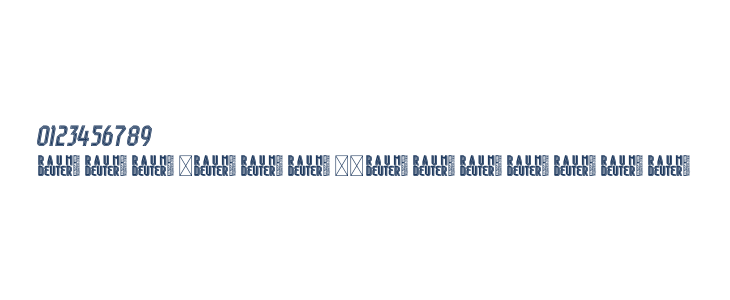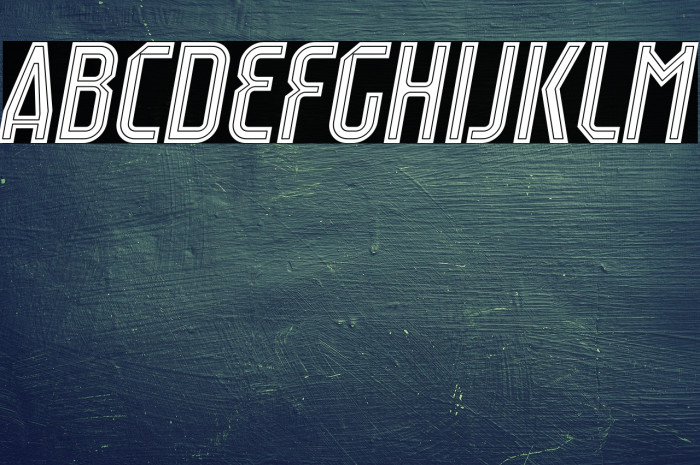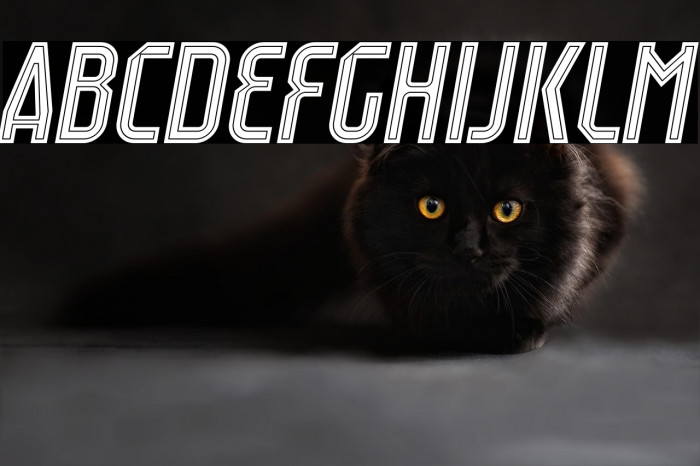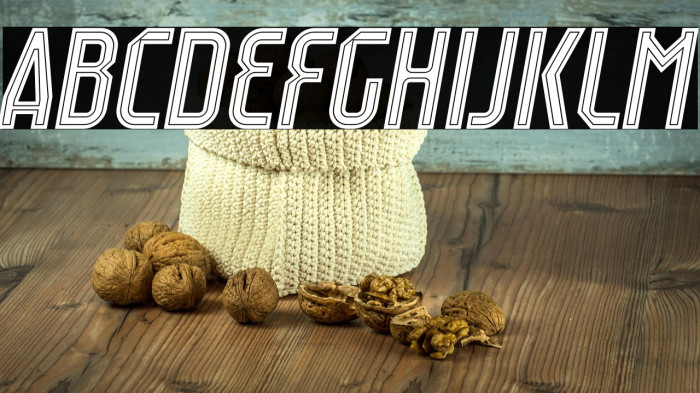
Raumdeuter Inline Italic Font
Raumdeuter Inline Italic Description
This font features a bold, inline design with a distinct italic slant, giving it a dynamic and modern appearance. The characters are outlined with a double-line effect, creating a sense of depth and dimension. The uppercase letters are angular and geometric, while the numbers maintain a consistent style, ensuring readability. The overall design is sleek and futuristic, making it suitable for projects that require a strong visual impact. The spacing between characters is normal, allowing for clear legibility even in smaller sizes.
| Proposed Projects | Ideal for branding, posters, and headlines that require a bold, modern look. |